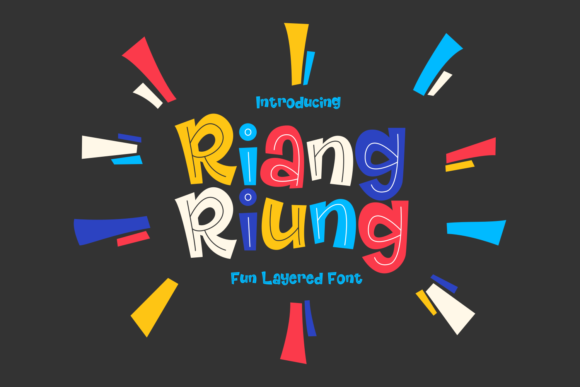
Unleash Your Childlike Creativity with Riangriung Font!
Riangriung, the captivating display font from GartypeStudio, is an artistic playground for kids' projects, bursting with playful energy and charm. Let your little ones embark on a creative journey, crafting designs that dance with joy and imagination. Riangriung's diverse layers allow for endless possibilities, transforming ordinary projects into extraordinary expressions of creativity.
Step into a world where letters come alive, where each stroke carries a playful melody, and every word dances with delight. Riangriung's whimsical nature captures the essence of childhood, inviting kids to express themselves with vibrant colors, unique shapes, and boundless imagination.
With Riangriung by your side, transform ordinary school projects into masterpieces, bringing life to stories, poems, and presentations. Create eye-catching invitations for birthday parties, design cheerful greeting cards for loved ones, or craft posters that ignite curiosity and spark imagination.
Engage your child's senses with Riangriung's enchanting characters. Each letter is a character in its own right, eager to play, explore, and bring joy to every design. Let your little ones explore the world through the eyes of Riangriung, where every project is an adventure and every creation a testament to their boundless creativity.